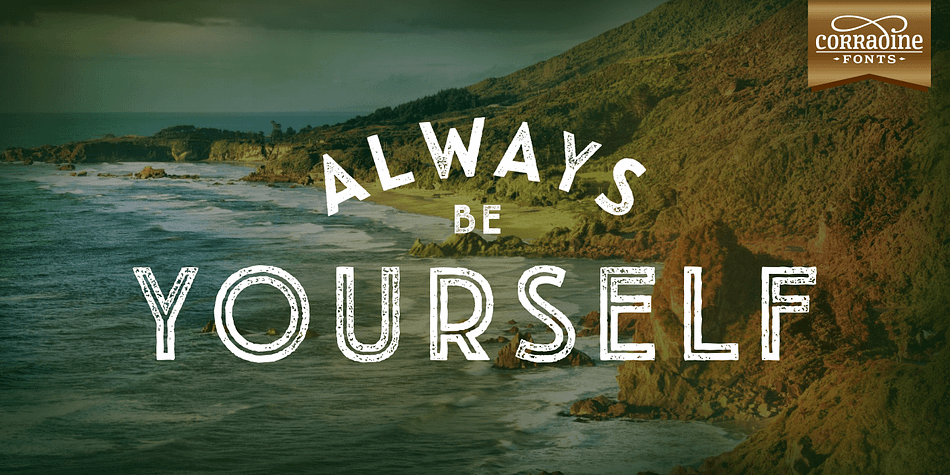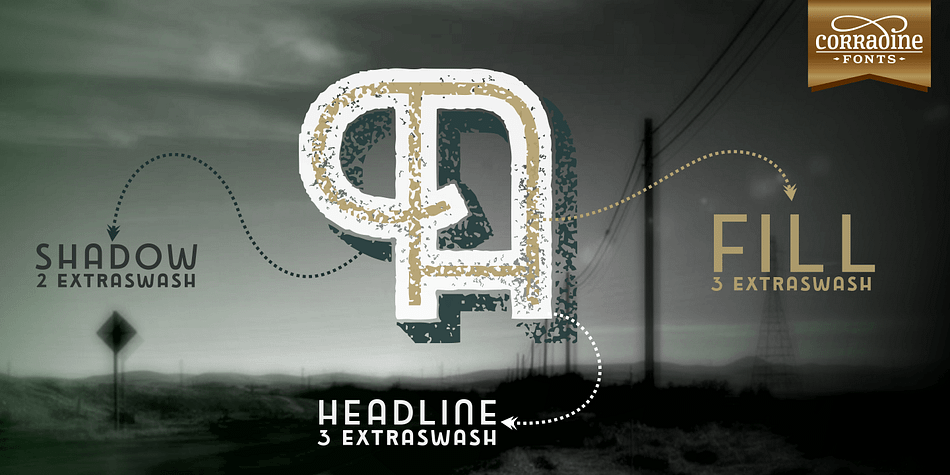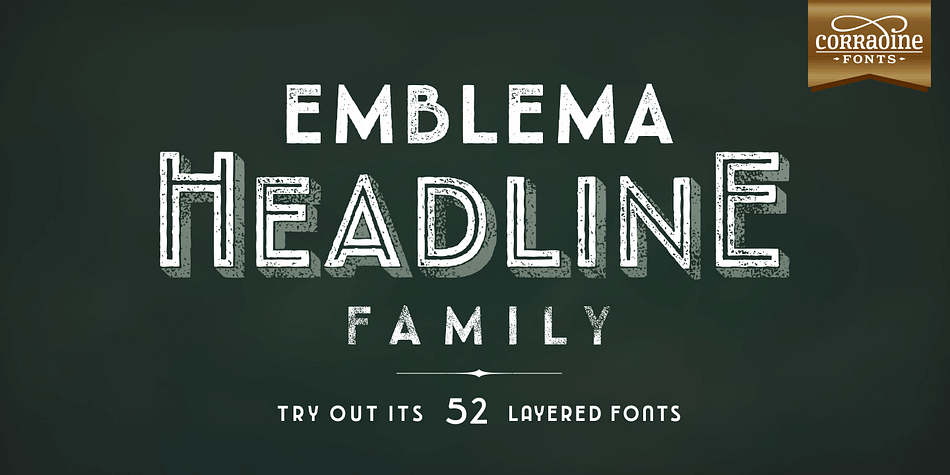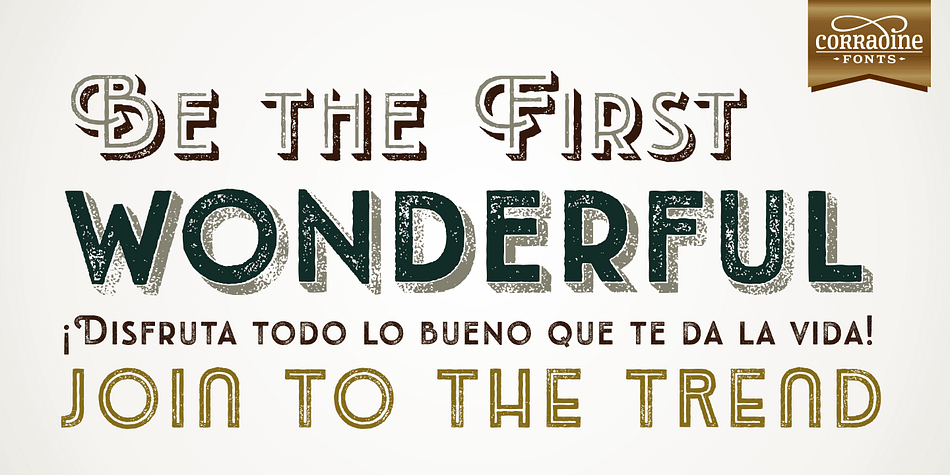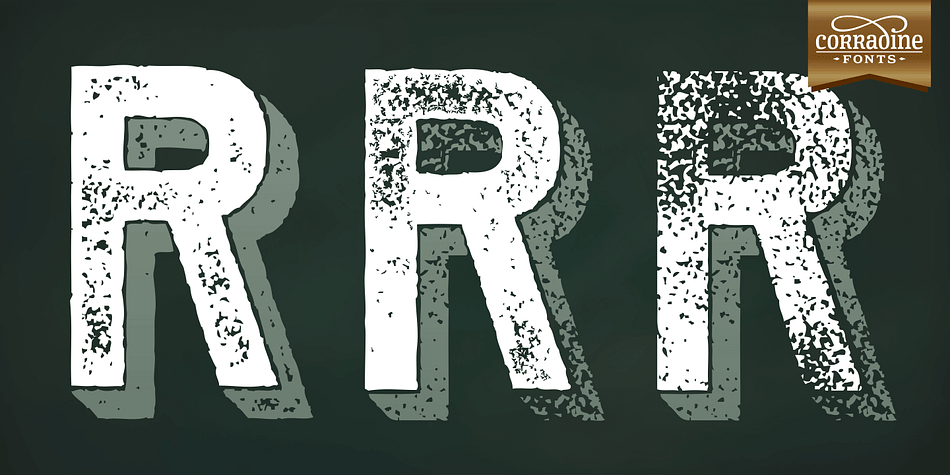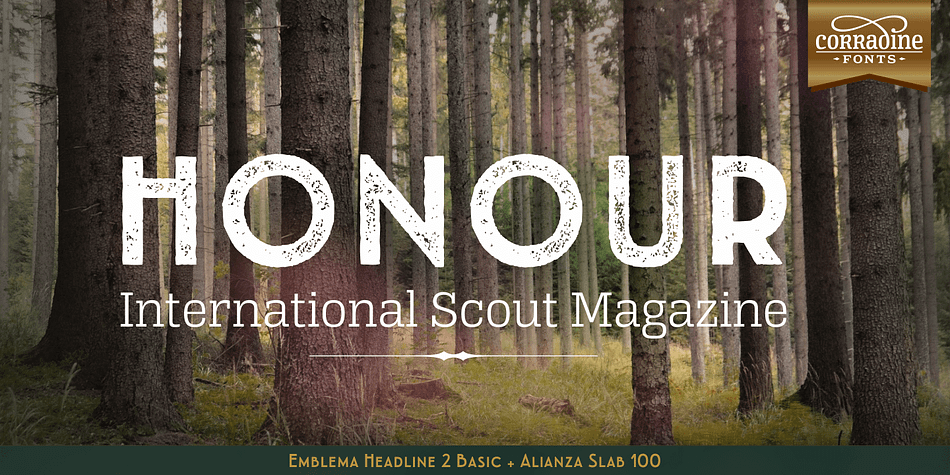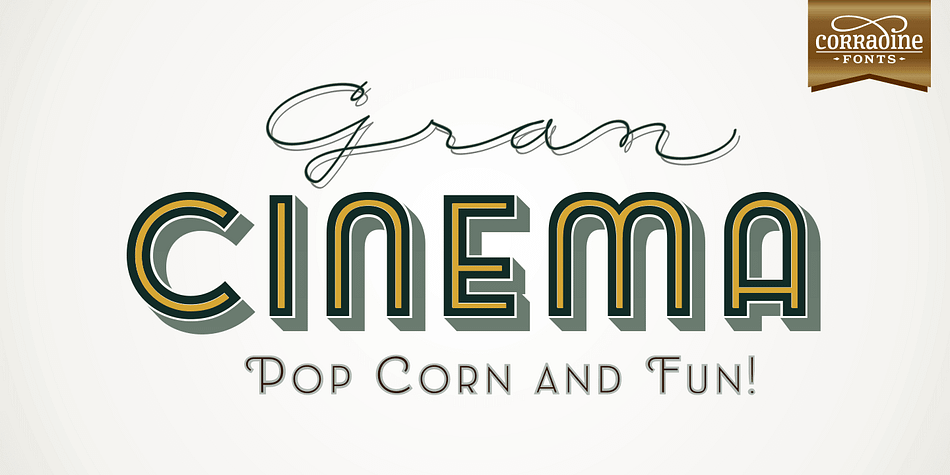
Designed by Duván Cárdenas, Emblema Headline is a display sans and art deco font family. This typeface has fifty-two styles and was published by Corradine Fonts.
Based on Corradine Fonts font Emblema 65, Emblema Headline is a powerful tool for modern designers who need a vintage art deco style font with personality and high quality.
Emblema Headline family has four layers, each one with three or four different looks, for a total of thirteen different variations. Non-OT-users can select a font from these thirteen variations, also with specific flavors: Basic, Deco, Swash or Extraswash. Explore the great possibilities of Emblema Headline in your next project.